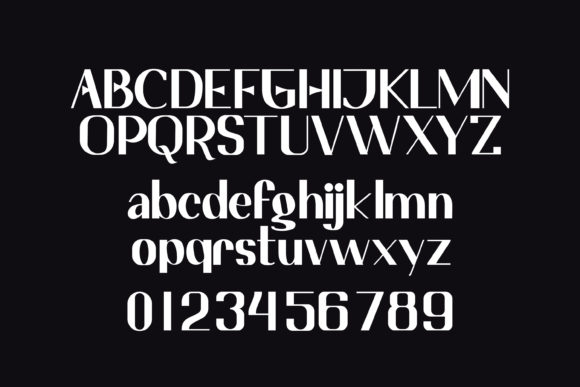
The Ultimate Guide to Gique Font: Elevate Your Designs with a Futuristic Twist
I’ll never forget the time I was working on a futuristic-themed project for a client, and I was struggling to find the perfect font to match the sleek, modern vibe I was going for. The client wanted something that screamed “cutting-edge technology” and “innovation,” but everything I tried looked either too bland or too over-the-top. That’s when I stumbled upon Gique Font, and it completely transformed my design. In this article, I’ll share my love for Gique Font, its features, and how to make the most of it in your designs.
An Honest Review of Gique Font
What I Love About Gique Font
- ✨ Futuristic and modern look: Gique Font has a bold, sleek design that instantly gives your creations a contemporary feel.
- ✅ Perfect for display text: Its cool, solemn vibe makes it ideal for headlines, titles, and any prominent text in your designs.
- 🌟 Highly legible: Despite its futuristic look, Gique Font remains easy to read, even in smaller sizes.
- 🎨 Versatile: It can be used in a wide range of projects, from tech brochures to futuristic posters and even branding materials.
While Gique Font is amazing, there are a few things to keep in mind:
- 🤔 Limited use in body text: Due to its bold nature, Gique Font might not be the best choice for long paragraphs of text. It’s best used for headings and titles.
- ⚠️ May not work well with all design styles: Its futuristic vibe might clash with more traditional or vintage design themes.
The Designer Inspiration Behind Gique Font
Gique Font was inspired by the sleek lines and futuristic landscapes of sci-fi movies and video games. Its designer aimed to create a font that captures the essence of innovation and technology, while still being stylish and modern. The result is a font that’s both bold and elegant, perfect for making a statement in your designs.
Q: What type of projects is Gique Font best suited for?
A: Gique Font is ideal for projects that require a modern, futuristic look, such as tech brochures, posters, and branding materials.
Q: Can I use Gique Font for body text?
A: While Gique Font is highly legible, its bold nature makes it more suitable for headings and titles. For body text, consider using a complementary font.
Q: Is Gique Font available in different weights or styles?
A: Yes, Gique Font comes in various weights and styles, allowing you to experiment with different looks and feels in your designs.